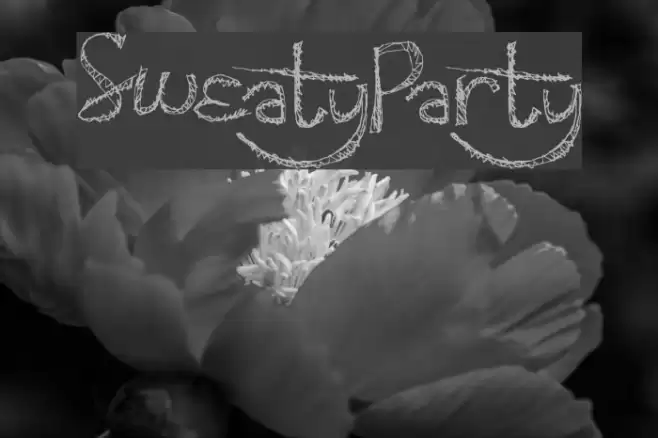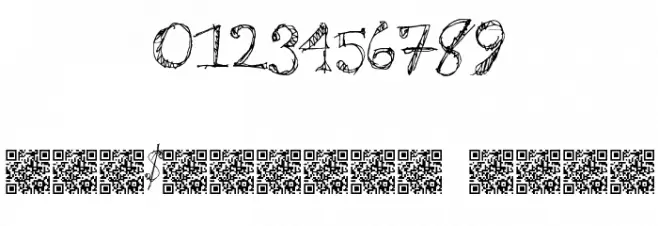
SweatyParty Font
SweatyParty Description
This font features a unique, hand-drawn style with a sketchy, textured appearance. Each character is adorned with intricate, irregular lines that give it a dynamic and energetic feel. The letters are slightly slanted, adding a sense of movement and fluidity. The uppercase and lowercase letters maintain a consistent style, with the uppercase being more pronounced and bold. Numbers and special characters follow the same design, ensuring a cohesive look across all elements. This font stands out with its artistic flair, making it ideal for creative projects.
A sketchy, hand-drawn font with dynamic, textured lines from Uncategorized fonts.